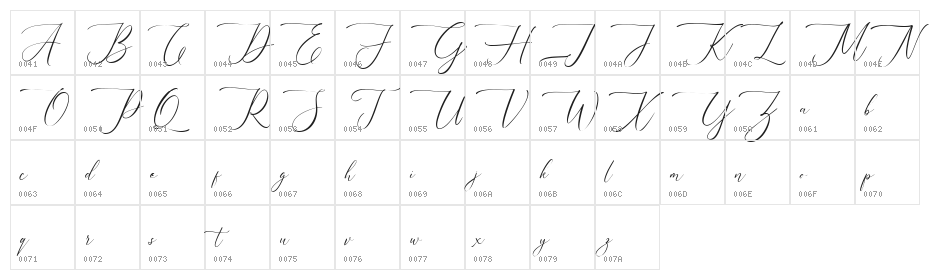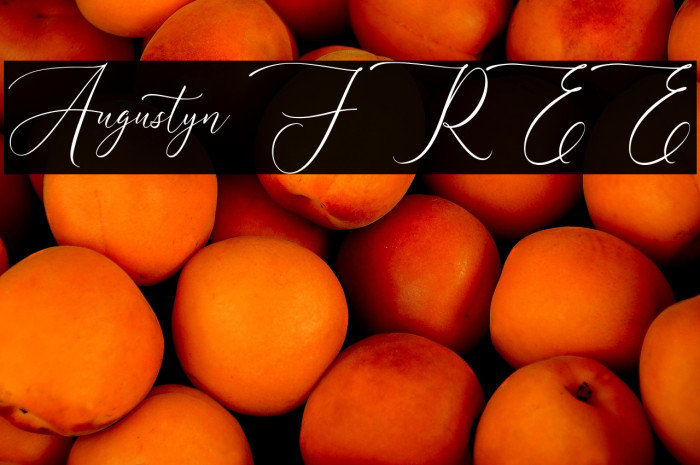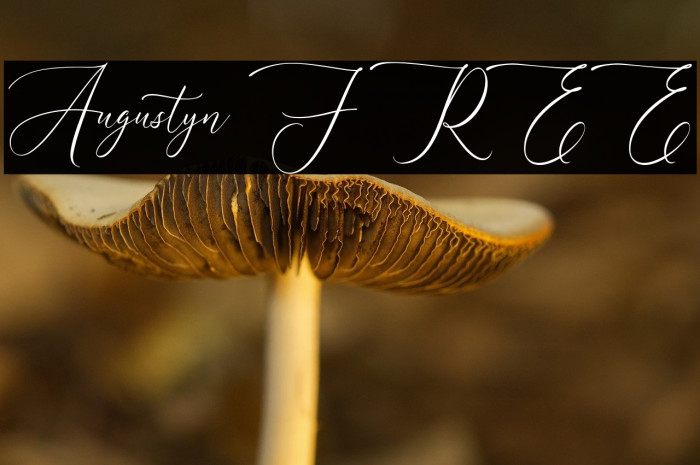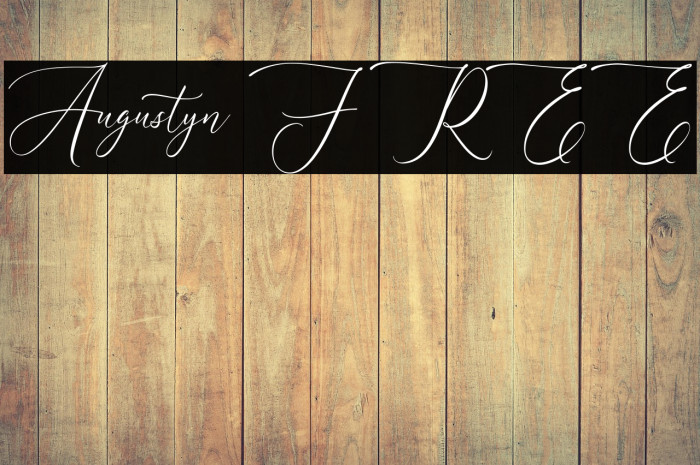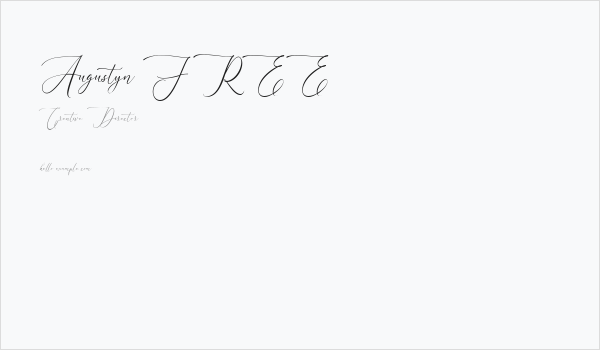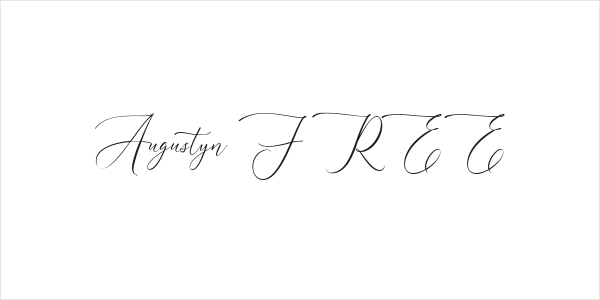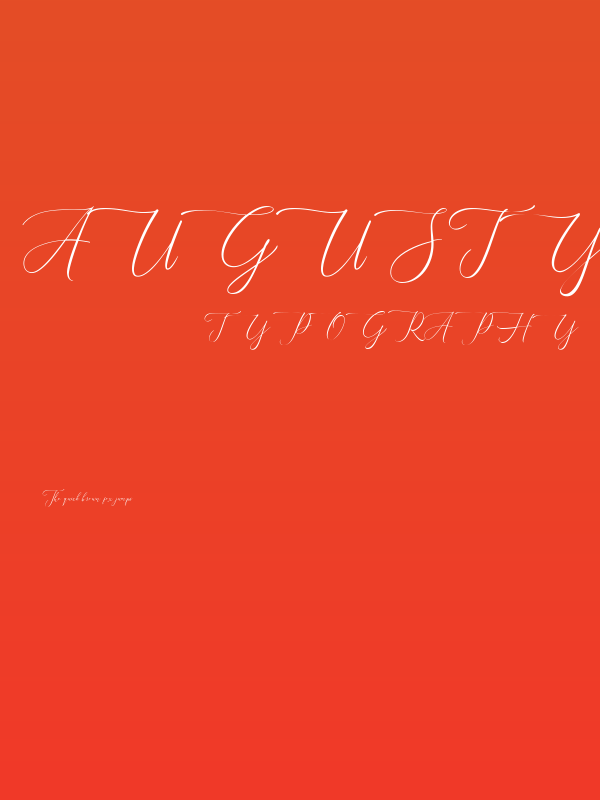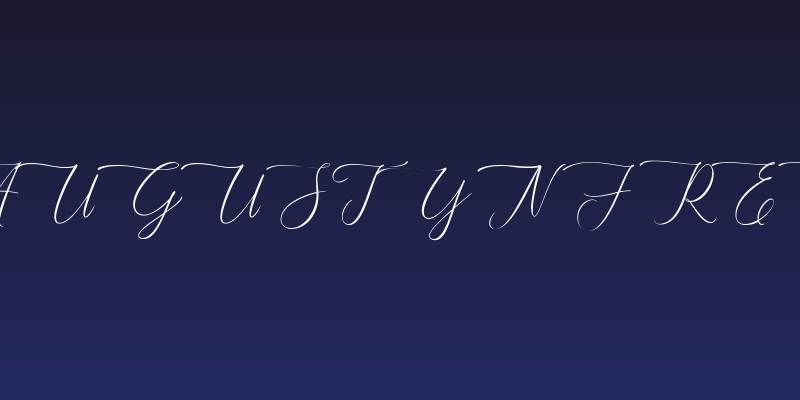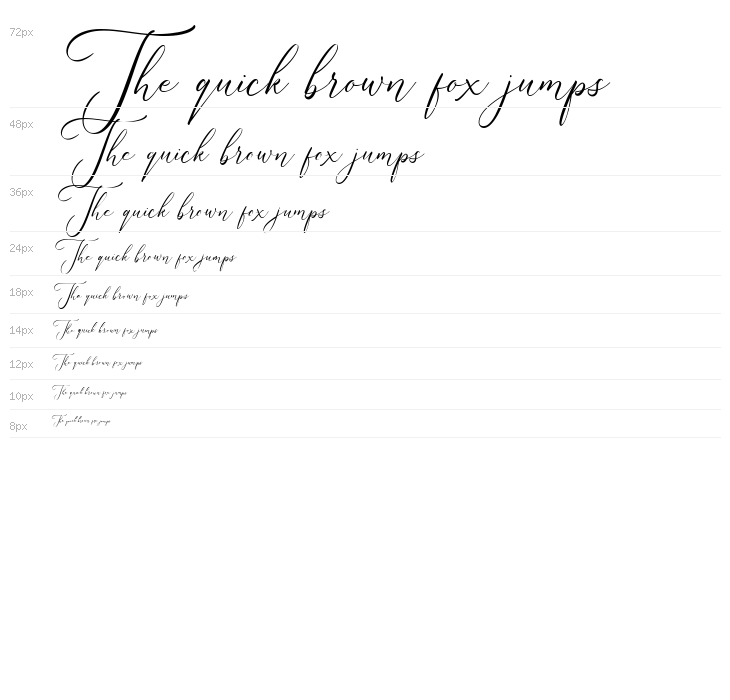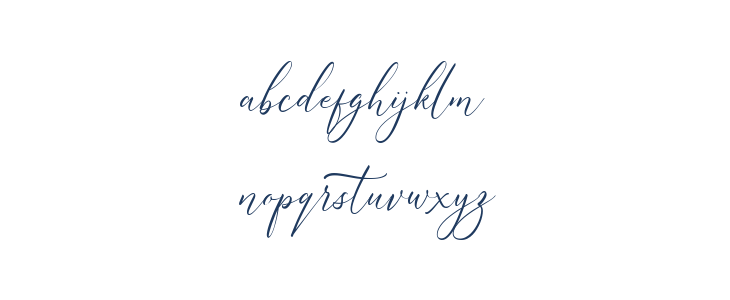
Augustyn FREE Font
Augustyn FREE Description
This font exudes elegance and sophistication with its flowing, cursive style. The uppercase letters are delicately crafted with graceful loops and swirls, giving them a sense of movement and fluidity. The lowercase letters maintain this fluidity while being slightly more compact, allowing for easy readability. The strokes vary in thickness, providing a medium contrast that adds to the font's overall charm. This script style is reminiscent of traditional calligraphy, making it suitable for projects that require a touch of class and refinement.
| Proposed Projects | Ideal for wedding invitations, elegant branding, greeting cards, and upscale packaging. |